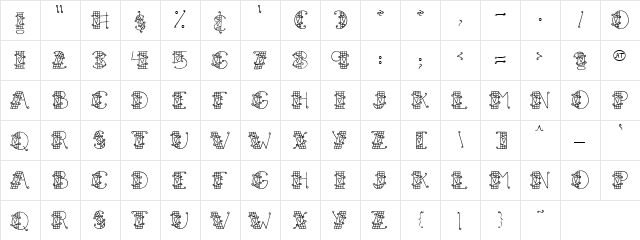
LD Twitterpated Regular Font Preview
LD Twitterpated Regular
Design Context for LD Twitterpated Typeface
LD Twitterpated is a composed and adaptable typeface that performs quietly and consistently across a wide range of design contexts.